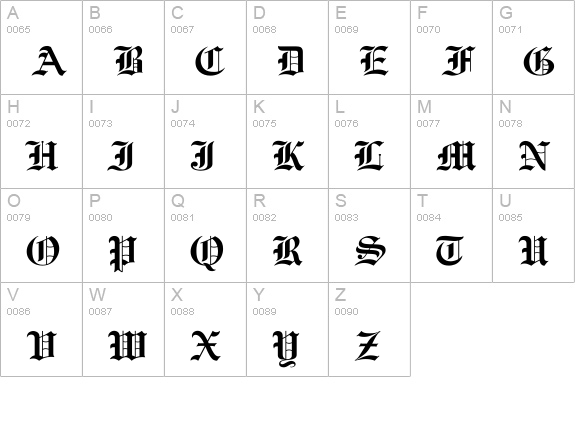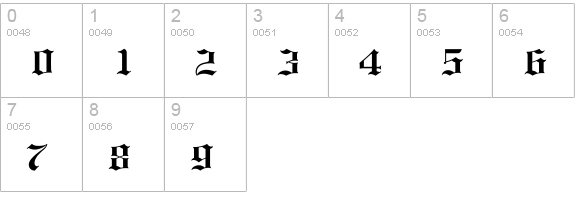
MEngraversOldEnglish Wd Font Details
MEngraversOldEnglish Wd font is a classic and elegant typeface that exudes a sense of sophistication and timelessness. With its intricate details and old-world charm, this font is perfect for adding a touch of vintage flair to your designs. Its ornate letterforms are reminiscent of traditional engravings, making it ideal for projects that require a touch of elegance and refinement. Best of all, MEngraversOldEnglish Wd font is available for free download at FontsMarket.com. This means that you can easily access this stunning typeface and incorporate it into your projects without any cost. Whether you're working on invitations, posters, or branding materials, MEngraversOldEnglish Wd font will add a touch of class and sophistication to your designs. Download this exquisite font today and elevate your projects with its timeless appeal.